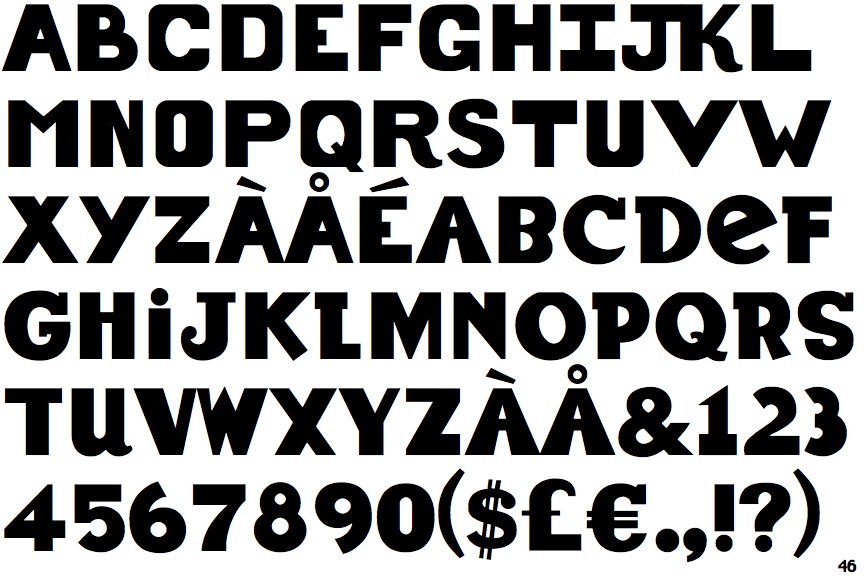
BadTyp Font
BadTyp Font is perfect for rebellious streetwear branding, alternative music venue signage, underground art galleries, edgy design studios, counterculture magazine layouts, nonconformist brand identities, punk rock merchandise, and anti-establishment marketing campaigns. This defiant typeface excels in applications where creative rebellion and typographic nonconformity are essential for creating authentic and provocative brand experiences that challenge conventional design standards.
What makes BadTyp Font truly exciting is its bold rejection of traditional typographic rules and its fearless embrace of creative imperfection that captures the spirit of artistic rebellion and design anarchy. The font features deliberately unconventional letterforms with intentional irregularities and rule-breaking character details that mirror the authentic chaos of underground art movements and the raw energy of creative dissent. Its rebellious personality and anti-establishment character create an immediate sense of authenticity and creative freedom that resonates with audiences seeking genuine alternative culture and artistic independence. The typeface's nonconformist appeal and punk heritage make it perfect for brands wanting to convey rebellion, authenticity, and connection to the underground movements that challenge mainstream culture.
The BadTyp Font family includes regular and distressed versions, complemented by anarchic alternates and rebellion-inspired decorative elements. The font offers comprehensive character sets with counterculture symbols, underground ligatures, and anti-establishment styling details that enhance its rebellious aesthetic. Additional graphic elements including graffiti marks, punk motifs, anarchist patterns, and rebellion flourishes provide designers with complete branding tools rooted in underground culture and creative resistance movements.